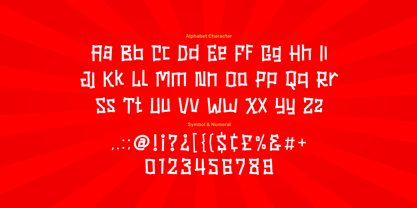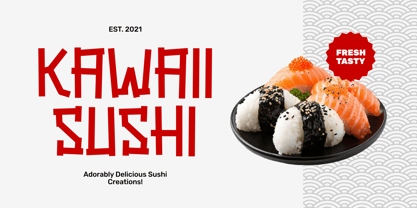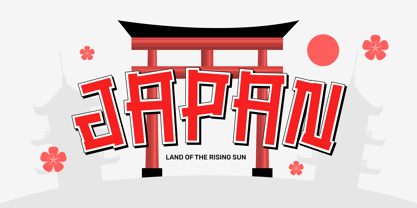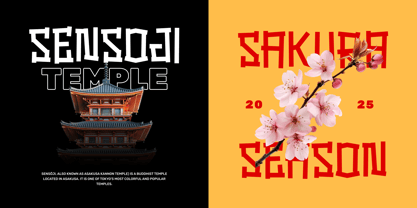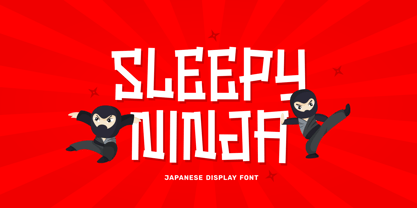
Sleepy Ninja
The Sleepy Ninja Font Family was designed by Aulia Savira Putri and published by Imoodev. Sleepy Ninja contains 1 styles. More about this family
Unleash your inner creative warrior with Sleepy Ninja, a bold and energetic display font that captures the vibrant spirit of Japanese culture! Inspired by the sharp, dynamic strokes found in manga, the exciting signage of Tokyo streets, and the stealthy movements of a ninja, this font is designed to make a powerful impact. Its blocky, geometric letterforms are meticulously crafted with a unique, modern edge, making it instantly recognizable. Whether you're designing a menu for a ramen shop, creating packaging for a fun food product, or branding a new video game. Give your projects an authentic, fun, and powerful Asian inspired aesthetic with Sleepy Ninja!